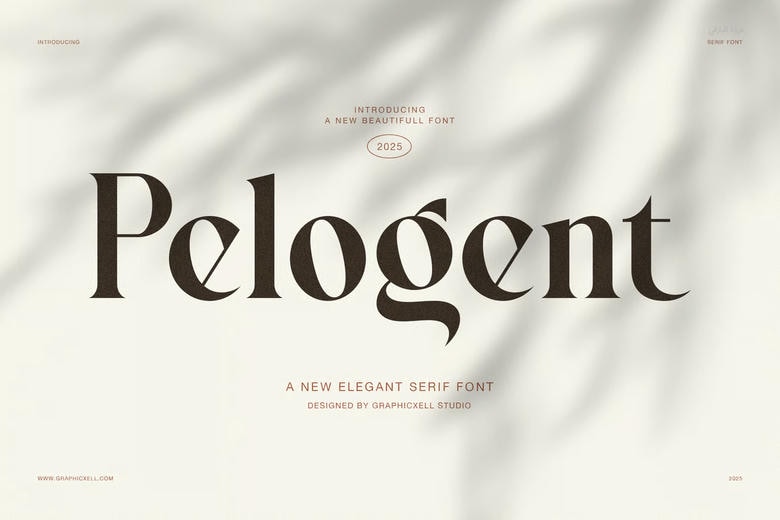
Pelogent Font
Pelogent Elegant Serif Font is one of the classic serif typeface fonts that combine precision and elegance of old times. It was designed to add majestic and elegant touch to each design. This font is suitable in branding, packaging, fashion, as well as editorial designs due to its beautiful form and contrast balance.
All the lines of Pelogent are brimming with confidence and sophistication. The rounded-off serifs will welcome you and the sharp edges will make your writing business-like and informative. Your designs will be ready to look polished, modern, and authoritative, as a result. Moreover, it is readable on the digital and print screens since it is designed in a streamed format.
Pelogent Elegant Serif Font